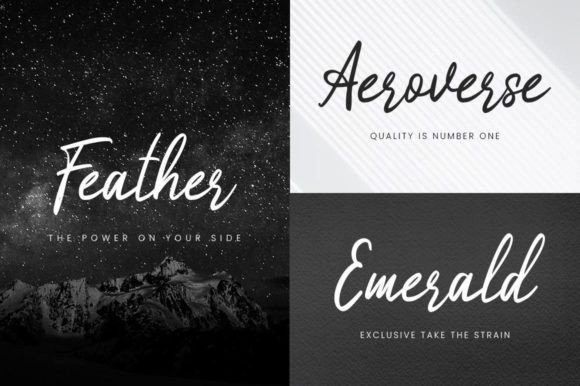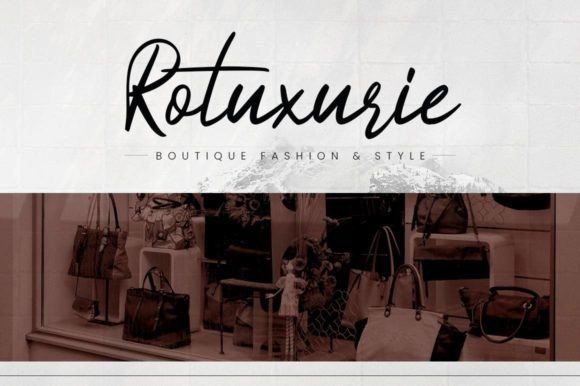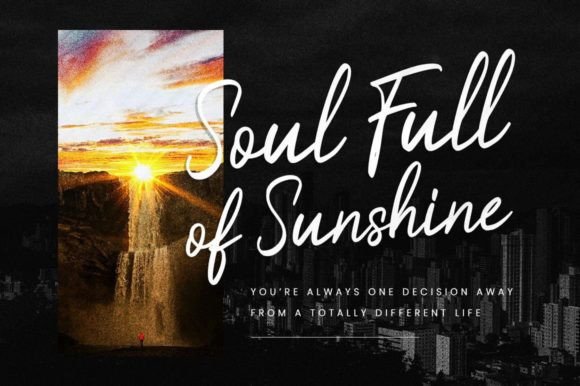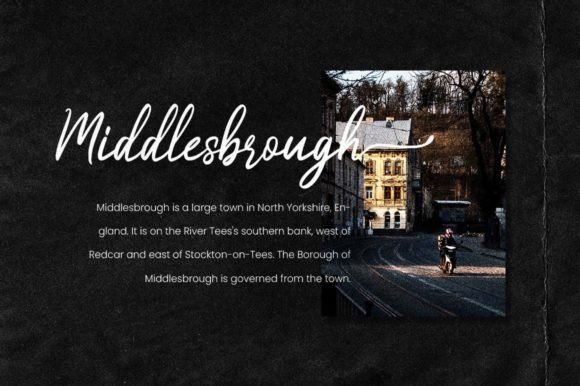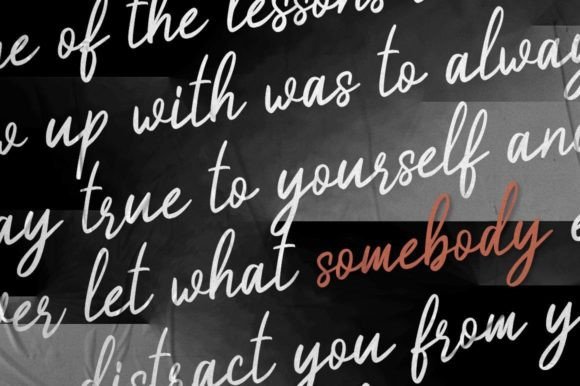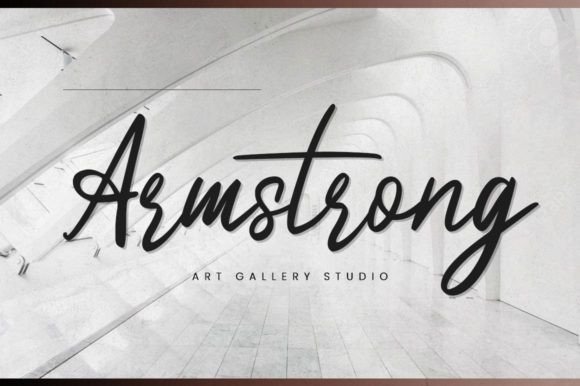
Dandiyella Font: Add a Touch of Whimsy to Your Designs
Are you looking for a font that can add a dash of playfulness and charm to your designs? Look no further than the Dandiyella Font! This lovely handwritten font features characters that seem to dance along the baseline, making it perfect for creative projects that need a touch of whimsy. In this article, we’ll take a closer look at the Dandiyella Font, its features, and how you can use it to take your designs to the next level.
What is Dandiyella Font?
Dandiyella Font is a beautiful handwritten font that is sure to capture your heart. Its charming and playful characters are designed to add a touch of elegance and sophistication to any design project. Whether you’re working on a logo, branding materials, or a craft project, Dandiyella Font is the perfect choice.
Key Features of Dandiyella Font
So, what makes Dandiyella Font so special? Here are some of its key features:
- Charming and Playful Characters: Dandiyella Font features characters that seem to dance along the baseline, giving your designs a playful and whimsical touch.
- PUA Encoded: Dandiyella Font is PUA (Private Use Area) encoded, which means you can access all glyphs and swashes with ease. This makes it easy to use the font in your designs and customize it to your needs.
- Handwritten Style: Dandiyella Font has a beautiful handwritten style that adds a touch of elegance and sophistication to any design project.
How to Use Dandiyella Font in Your Designs
Using Dandiyella Font in your designs is easy! Here are some tips to get you started:
- Pair it with Other Fonts: Dandiyella Font pairs well with other fonts, so feel free to experiment with different combinations to find the perfect look for your design.
- Use it for Headings and Titles: Dandiyella Font is perfect for headings and titles, where its playful and charming characters can really shine.
- Add Swashes and Glyphs: With its PUA encoding, you can easily access all glyphs and swashes in Dandiyella Font, adding an extra touch of elegance and sophistication to your designs.
Dandiyella Font is perfect for designers and crafters who want to add a touch of whimsy and playfulness to their projects. Whether you’re working on:
- Logo Design: Dandiyella Font is perfect for logo design, where its charming and playful characters can help create a memorable brand identity.
- Branding Materials: Use Dandiyella Font to create beautiful branding materials, such as business cards, brochures, and letterheads.
- Craft Projects: Dandiyella Font is also perfect for craft projects, such as scrapbooking, card making, and journaling.
In conclusion, Dandiyella Font is a beautiful handwritten font that can add a touch of whimsy and playfulness to your designs. With its charming and playful characters, PUA encoding, and handwritten style, it’s perfect for designers and crafters who want to create unique and memorable projects. So why not give Dandiyella Font a try and see how it can take your designs to the next level?